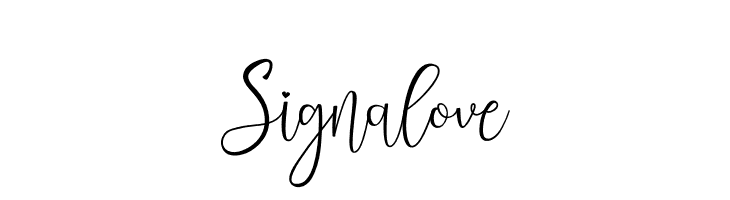
An ornate and decorative font with intricate swirling patterns.
A bold, dynamic script font with flowing, cursive letterforms.
An elegant script font with flowing, cursive letterforms and sophisticated style.
A bold, modern typeface with clean lines and strong presence.
An elegant, flowing script font with ornate uppercase and smooth lowercase letters.
A bold, retro-inspired decorative font with bubbly, exaggerated shapes.
A bold, expressive script font with fluid, interconnected strokes.
A bold, playful font with rounded, hand-drawn characters.
A bold, hand-drawn display font with rounded, irregular forms.
A playful, bold font with rounded, whimsical characters.
A romantic and elegant script font with flowing, cursive letterforms.
An elegant and ornate font with intricate flourishes, perfect for formal and luxurious designs.
A romantic script font with ornate swirls and split monogram style.
A playful, handwritten font with rounded, consistent strokes and a casual feel.
A playful, bold handwritten font with thick strokes and rounded edges.
A lively, expressive handwritten font with fluid strokes and playful curves.
A delicate, elegant handwritten font with flowing, interconnected letterforms.
Playful handwritten font with a casual style.
A lively and expressive handwritten font with fluid, dynamic strokes.
An elegant script font with flowing, interconnected letters and a classic appearance.
A playful, decorative font with whimsical elements like hearts and dots.
An edgy, graffiti-inspired font with sharp angles and a bold, artistic style.
A whimsical, hand-drawn script with decorative swirls and loops.
A playful, handwritten font with tall, narrow letters and a whimsical style.
A playful, handwritten-style font with smooth curves and consistent strokes.
A bold, angular font with a modern twist on Gothic style, featuring high contrast and sharp edges.